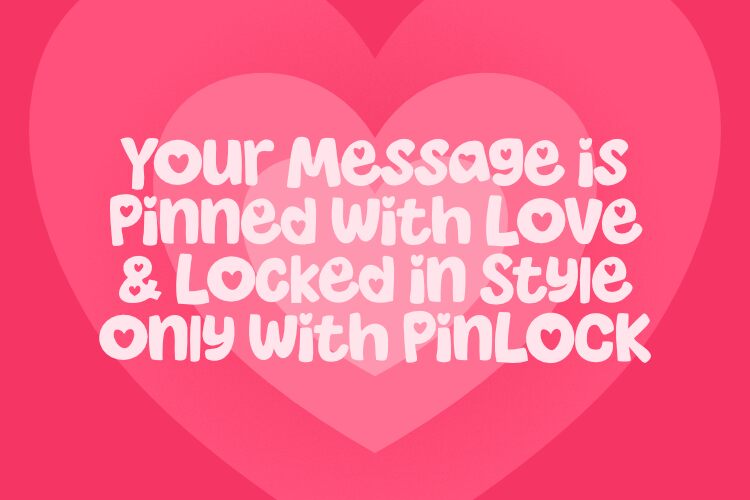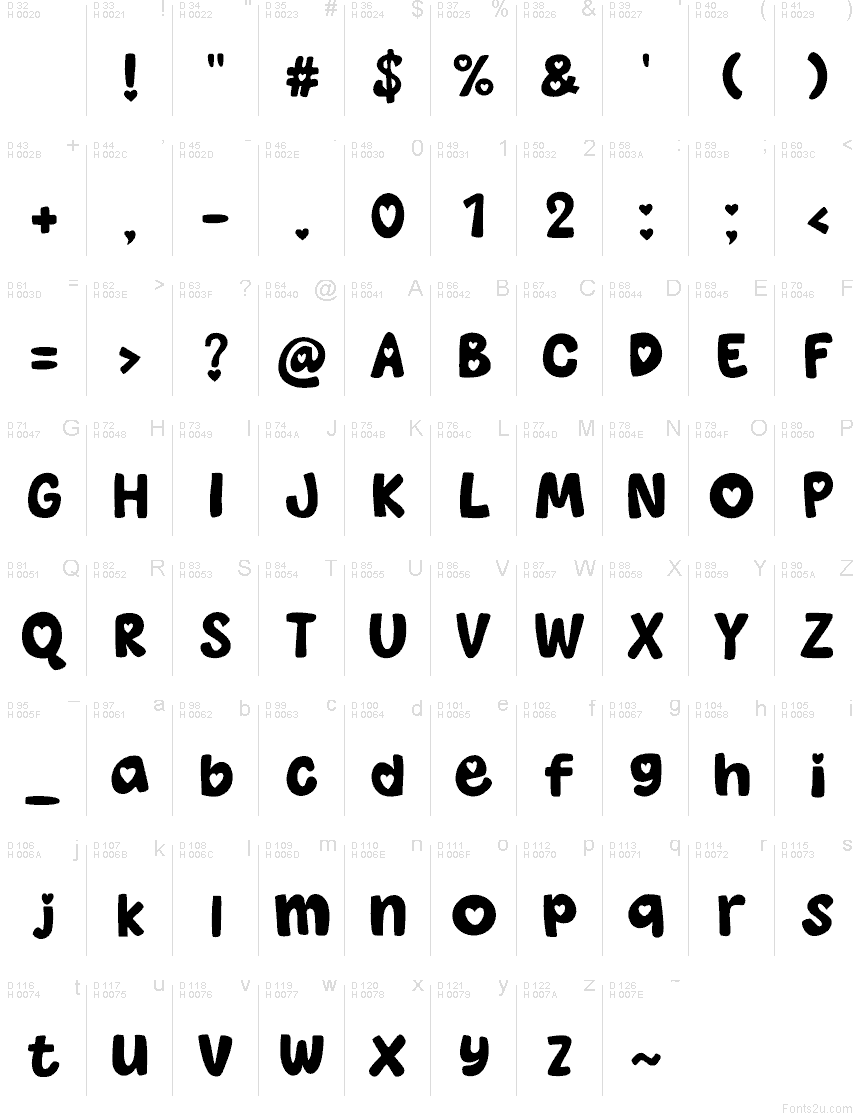
MGF Pinlock Personal Use
MGF Pinlock font by Mighty Gummy Factory is a free valentine decorative font, with puffy, gummy-soft curves and bold strokes that read like sticker lettering. Its signature touch is the heart-shaped cutouts tucked into the forms, giving every word a sweet wink without needing extra icons. The spacing stays roomy, so the chunky rhythm feels friendly rather than crowded.
Using MGF Pinlock on candy packaging, Valentine cards, date-night posters, Instagram story titles, party invites, gift tags, kids’ crafts, and playful merch gives your message instant warmth. Pair this free font with a clean, simple sans for details, and let Pinlock handle the headlines at larger sizes.
PINLOCK is a bold font.